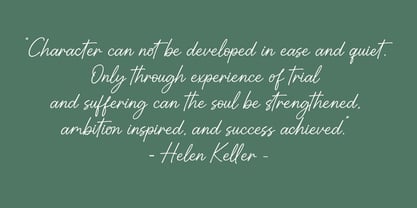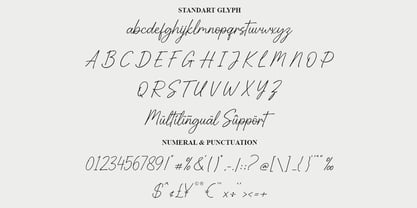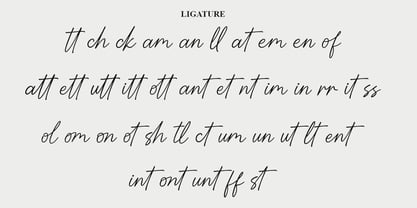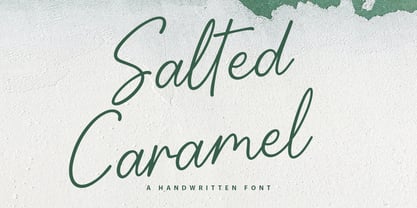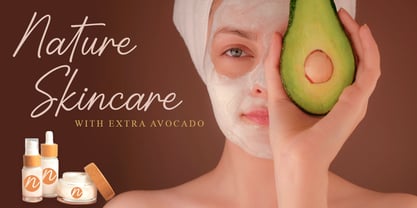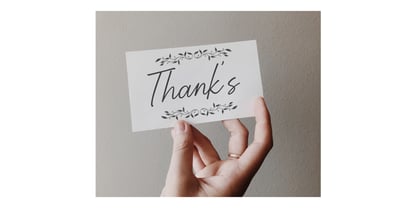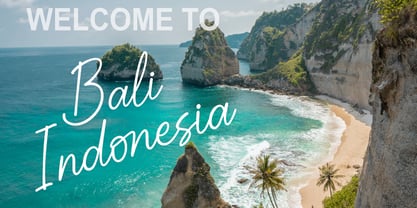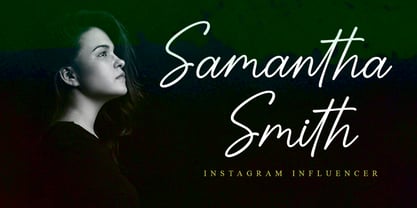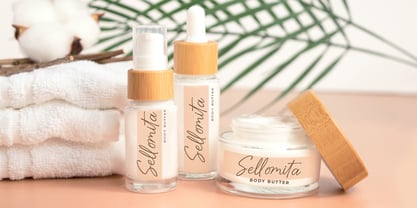
Salted Caramel
Salted Caramel is a natural handwritten script font with a warm, elegant, and organic personality. Inspired by real pen strokes, this typeface delivers a smooth flow, light texture, and balanced spacing that feels authentic and modern at the same time. Designed for versatility, Salted Caramel works beautifully for branding, skincare and beauty packaging, social media content, lifestyle photography overlays, invitations, quotes, logos, and travel or editorial designs. Its clean handwritten style keeps text readable while adding a personal and friendly touch. This font includes uppercase and lowercase letters, numerals, punctuation, and multilingual support. Carefully crafted ligatures enhance natural connections between characters, creating a seamless handwritten look without sacrificing clarity. Salted Caramel is perfect for designers who want a casual yet refined script that feels honest, stylish, and timeless. Features: Handwritten script style Uppercase & lowercase letters Numerals & punctuation Multilingual support Standard & discretionary ligatures Ideal for branding, packaging, quotes, and social media Add a warm handwritten charm to your designs with Salted Caramel.
Sugeng Hariyanto is an independent type foundry based in Indonesia, dedicated to creating original and high-quality fonts that blend artistry and functionality. With over seven years of experience in type design, the foundry focuses on producing expressive handwritten and elegant script typefaces that bring personality and authenticity to every creative project. Each font is carefully crafted to meet professional design needs while maintaining a distinctive, handcrafted touch.